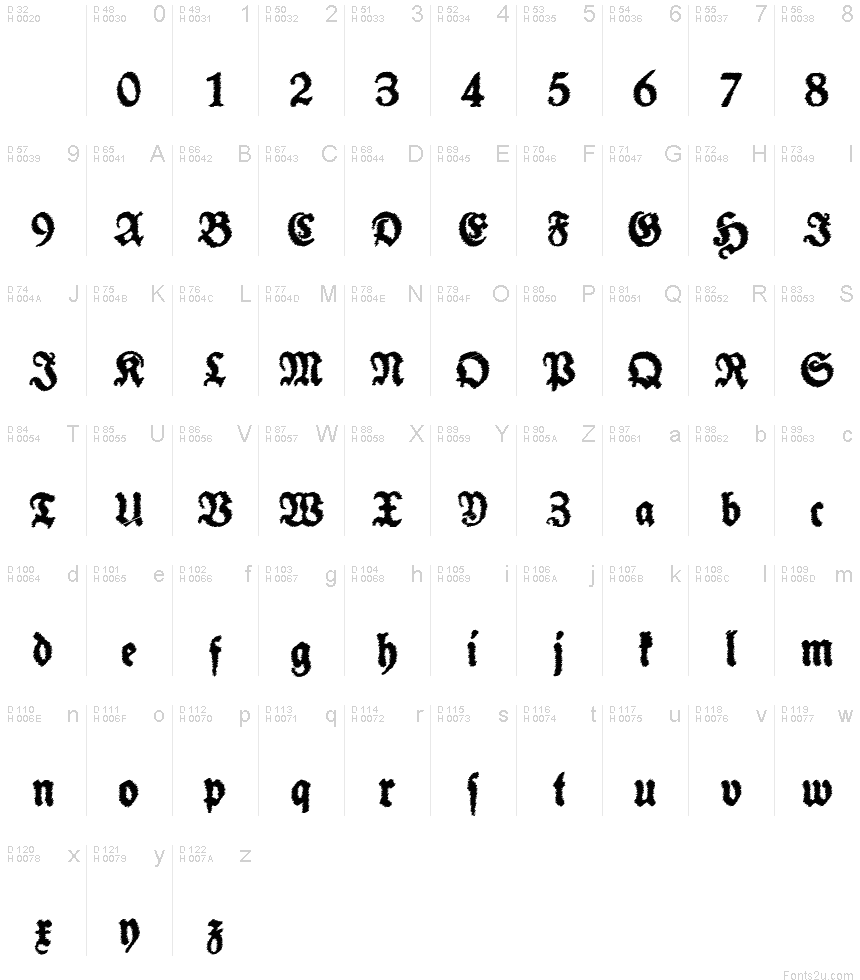
Schneidler Halb Fette Trash by Paulo W of Intellecta Design is a free medieval blackletter font with sharp hooks, dense broken strokes, and the sweeping movement of formal penwork. Its ragged edges make the ornate capitals look scraped and timeworn.
A dark beer label or heritage clothing brand could use this battered manuscript style as the basis for packaging and merchandise with a theatrical, deliberately unpolished look. It also suits metal album covers and medieval game titles, with the distressed letters acting as part of an illustrated emblem or recognizable product mark instead of ordinary display type.